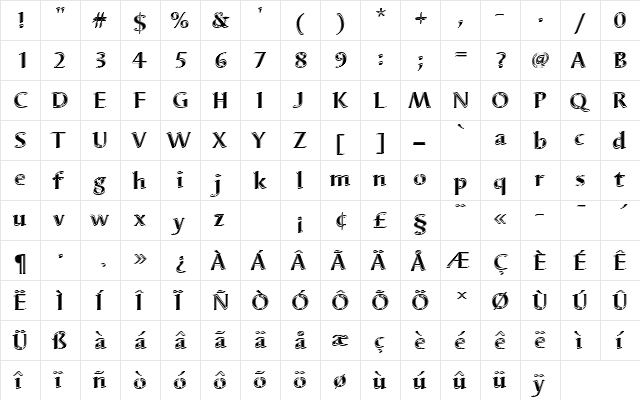
BarbedorTBolIn1 Regular
Design Context for BarbedorTBolIn1 Typeface
BarbedorTBolIn1 takes a measured approach to typography — its balanced proportions and neutral character make it a reliable workhorse for both digital and print work.